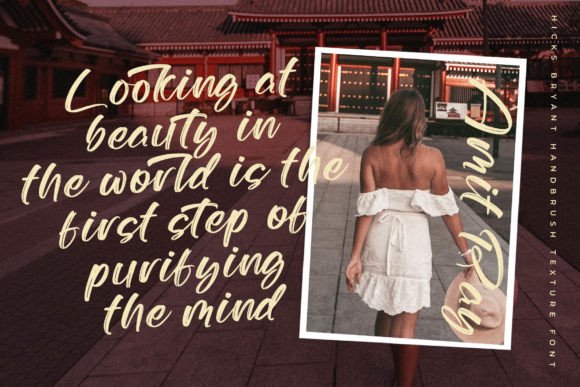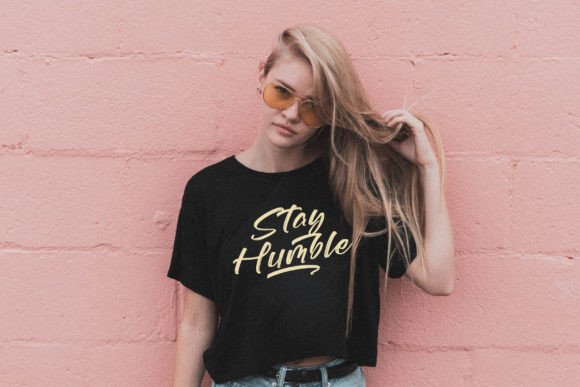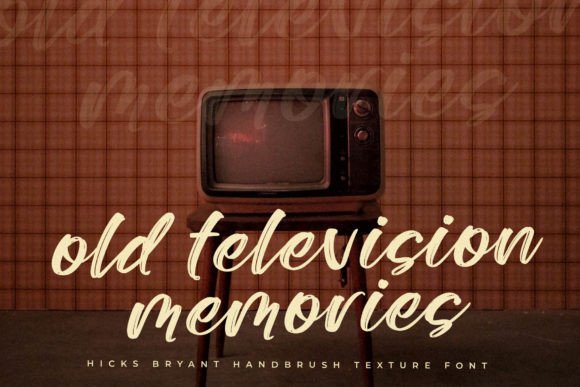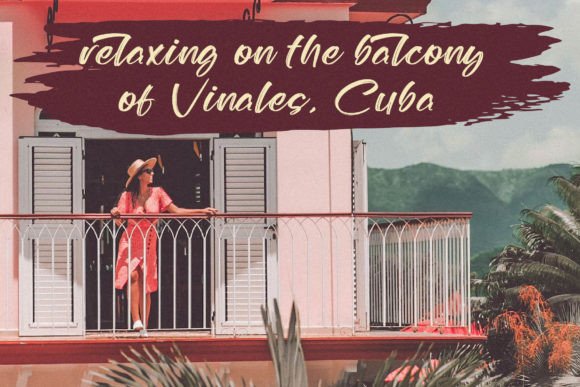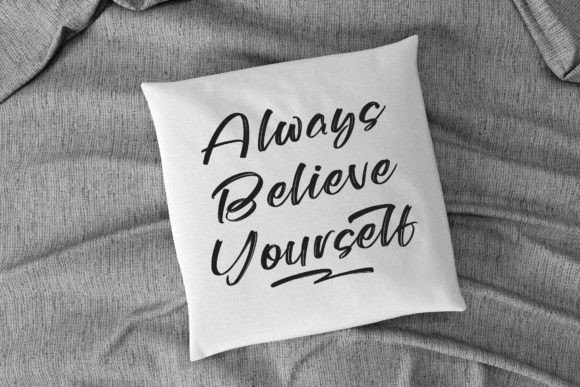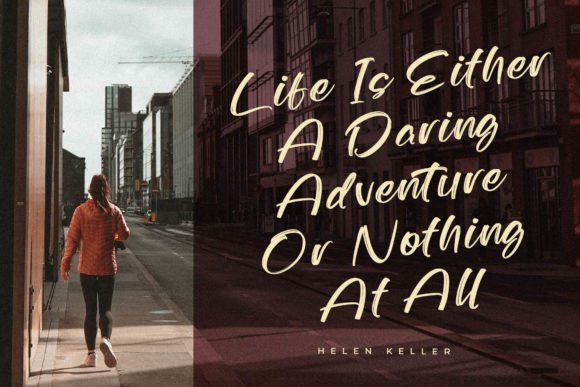
Introduction to Hicks Bryant Font
Have you ever found yourself staring at a blank canvas, searching for the perfect font to bring your creative project to life? The thrill of discovering a new design resource can be exhilarating, and that’s exactly what we’re about to share with you – the Hicks Bryant Font.
This exquisite handwritten font has captured the hearts of many designers, and for good reason. Its classy calligraphic influences, combined with a fresh and contemporary feel, make it the perfect addition to any design. Whether you’re working on a high-quality brochure or a creative poster, Hicks Bryant Font is sure to elevate your project to new heights.
Key Features of Hicks Bryant Font
- The Hicks Bryant Font is a high-quality, versatile design resource suitable for various creative projects.
- It has a medium to large size, making it ideal for headings and titles in various design applications.
- This unique font boasts a mix of modern and vintage elements, adding a touch of sophistication to any creative project.
- The Hicks Bryant Font is fully scalable, allowing designers to adjust the size and style to suit their design needs.
Honest Review: Hicks Bryant Font
I recently had the chance to work with the Hicks Bryant Font, and I must say it’s a great addition to any designer’s toolkit. This font is perfect for creating a unique and eye-catching design for your next creative project.
- ✨ High-quality design: The Hicks Bryant Font is a beautifully crafted font with a unique blend of modern and vintage styles.
- ✨ Versatile usage: It can be used for a wide range of applications, from headlines to body text, making it a great resource for designers.
However, there are a few limitations to be aware of:
- ⚠️ Limited font weights: The Hicks Bryant Font only comes in a few weights, which may limit its usage in certain situations.
- ⚠️ Not ideal for small text: Due to its unique style, the font may not be the best choice for small text or body copy.
Overall, I’m impressed with the Hicks Bryant Font and would definitely recommend it to designers looking for a high-quality, unique font for their next project. Its versatility and free download make it a great resource to have in your design arsenal.
Tips for Getting the Most Out of Hicks Bryant Font
For the best results, use Hicks Bryant Font in combination with other high-quality design elements. Experiment with different font sizes, colors, and styles to achieve the desired look. You can also use the transparent background feature to create a cohesive design.
Hicks Bryant Font is commonly used for creative projects, such as designing logos, icons, and graphics. It is also used for presentations, reports, and articles that require a professional and elegant look. The font’s high-quality design and transparent background feature make it an ideal choice for designers and non-designers alike.